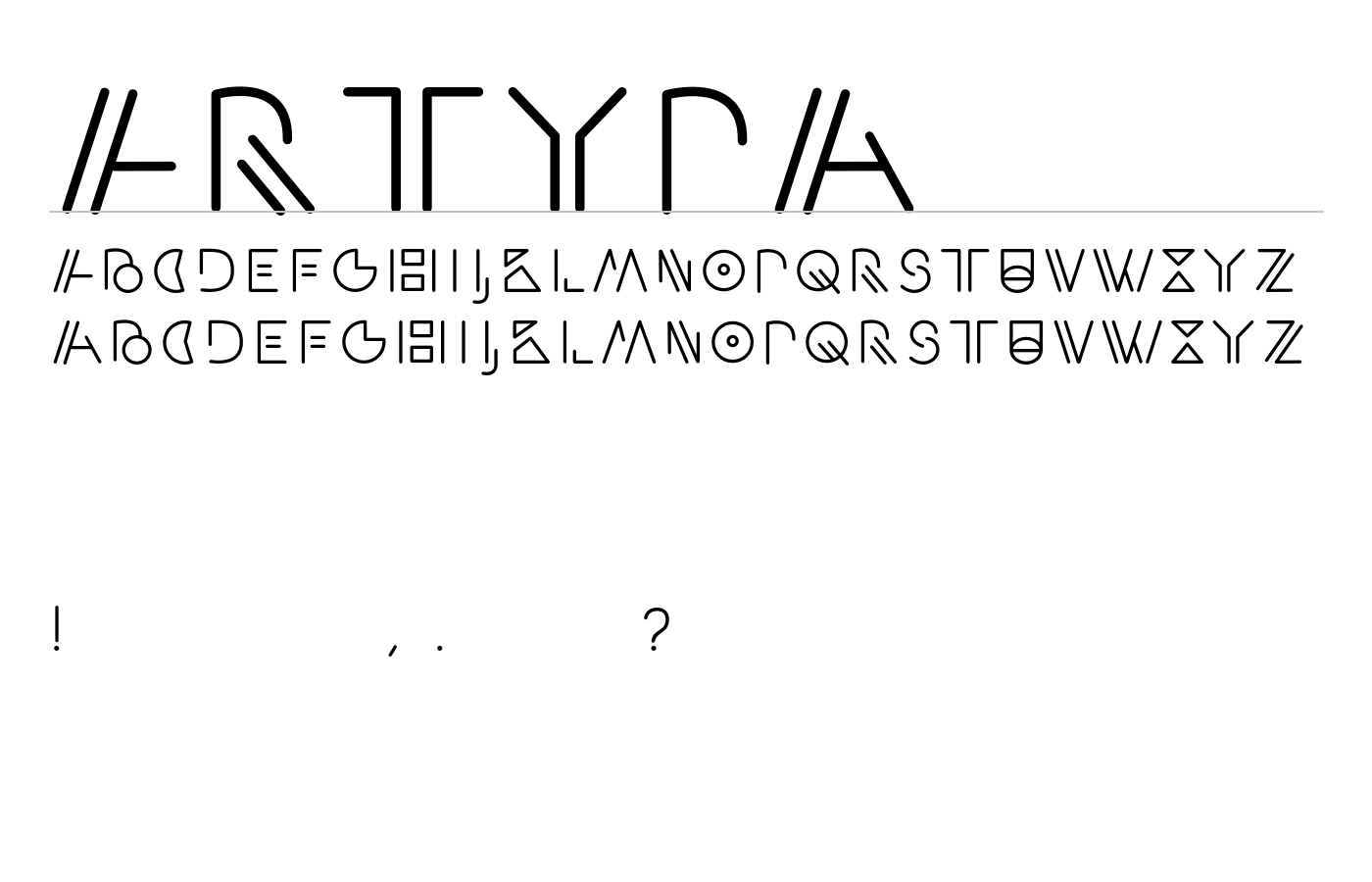
Artypa is a futuristic, geometric sans-serif font characterized by its thin, clean lines and unique angular shapes that create a modern and artistic feel. With its high x-height and stylized letterforms, it is ideal for creative logos, headlines, and branding projects seeking a distinctive, tech-inspired aesthetic. This font works best in display uses where its intricate design can stand out and convey innovation and sophistication.
Artypa Font
About Artypa Font
| Font family | Artypa Font |
| Designer | Philip Trautmann |